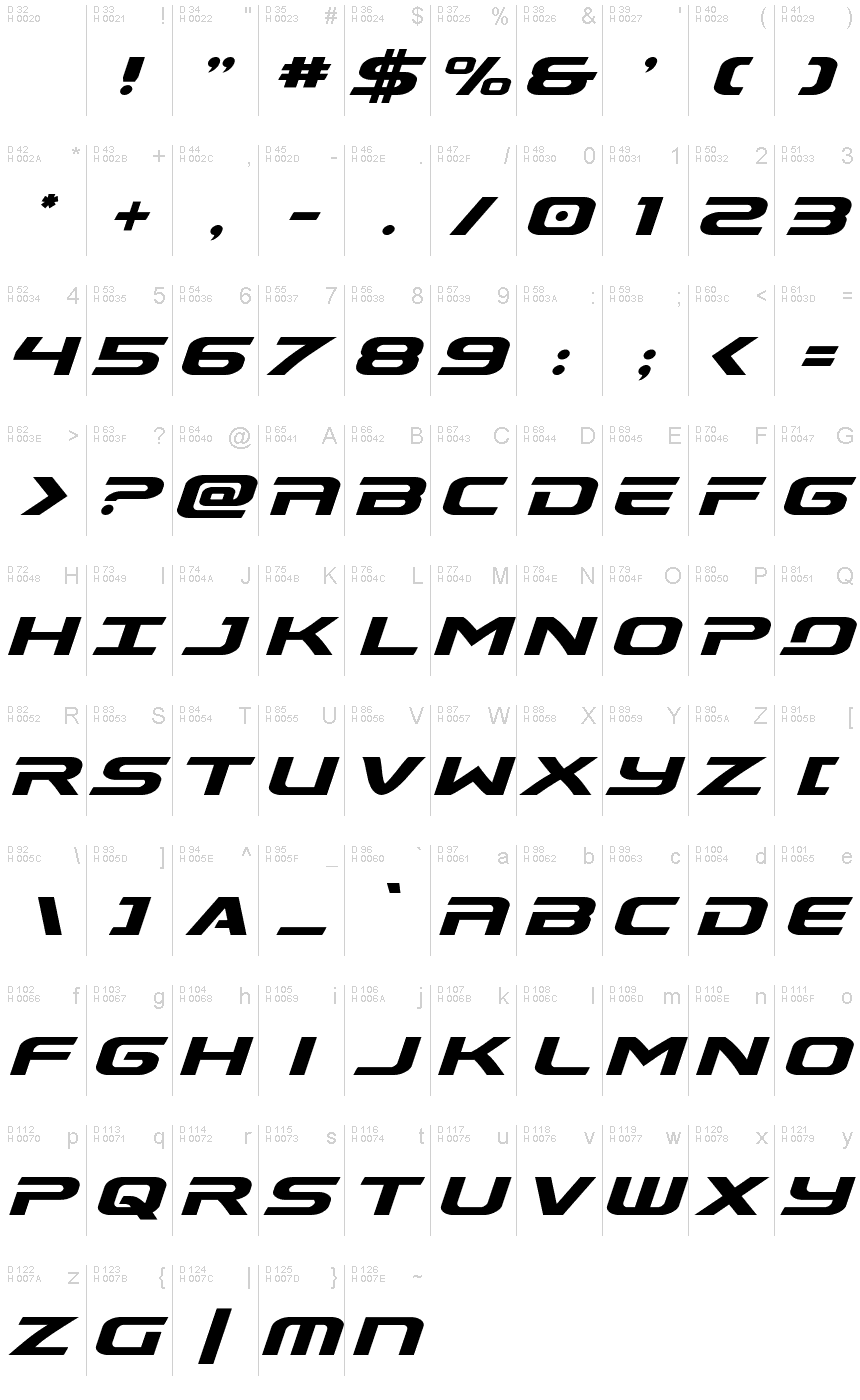
Drius Italic, part of the Drius font family designed by Iconian Fonts, is a bold and futuristic display typeface. With its extra-expanded width, this font brings a modern and sleek look to any project. Its italic style adds a touch of elegance and uniqueness, making it suitable for various creative endeavors.
Use Drius Italic to create eye-catching logos, headlines, or posters that demand attention. This font will give your designs a cutting-edge feel while ensuring readability and making a bold statement.
Let your imagination run wild with the limitless possibilities of Drius Italic!